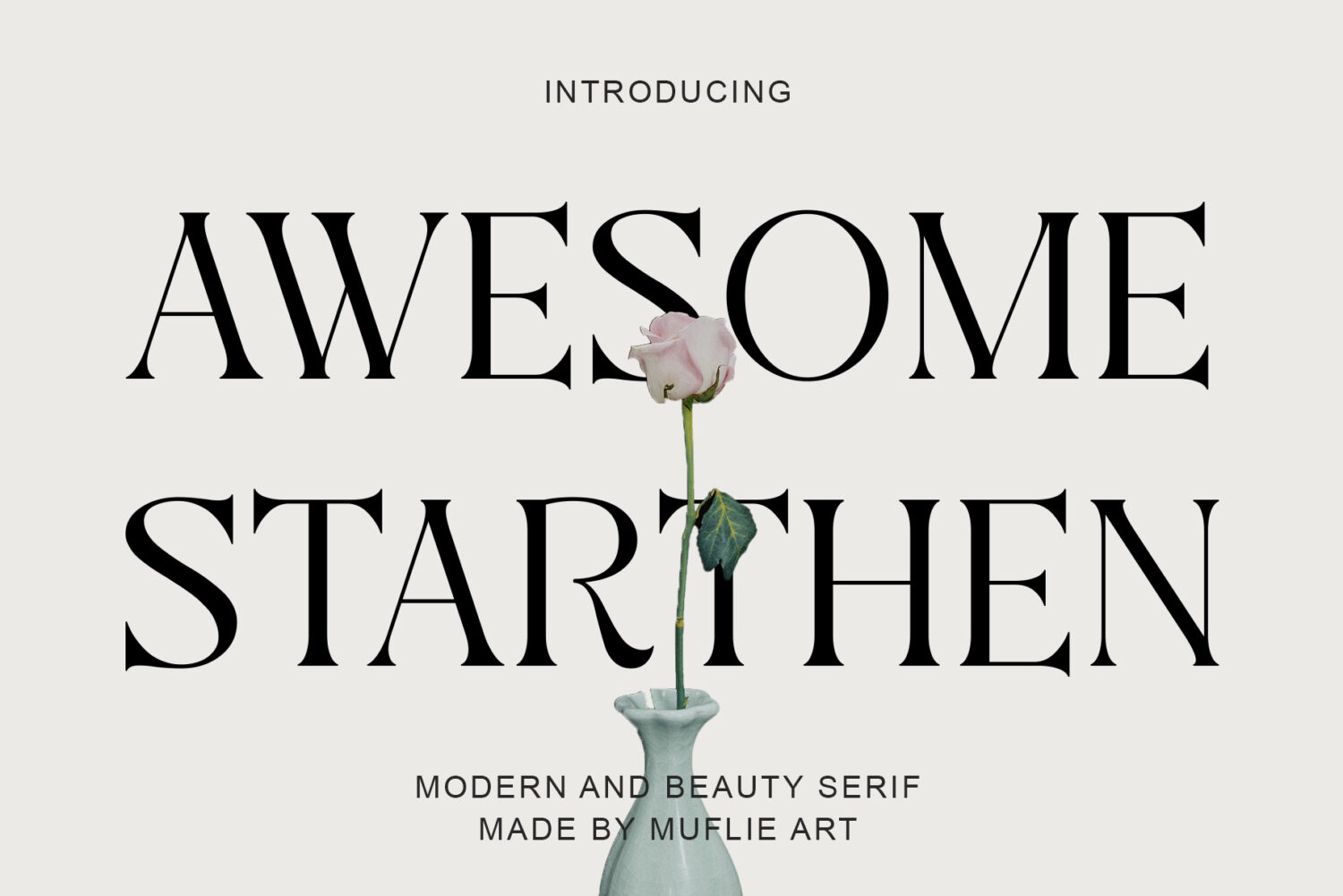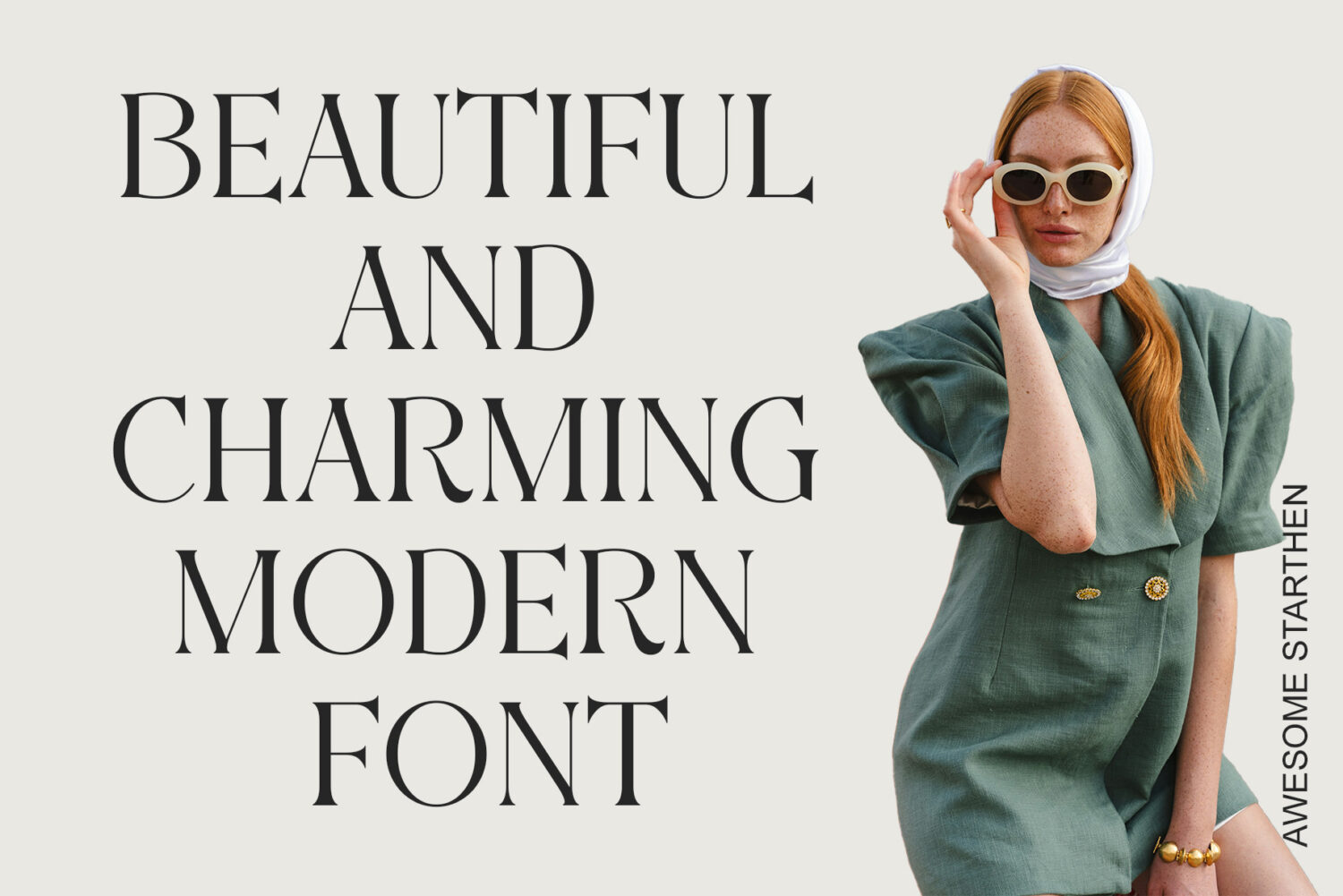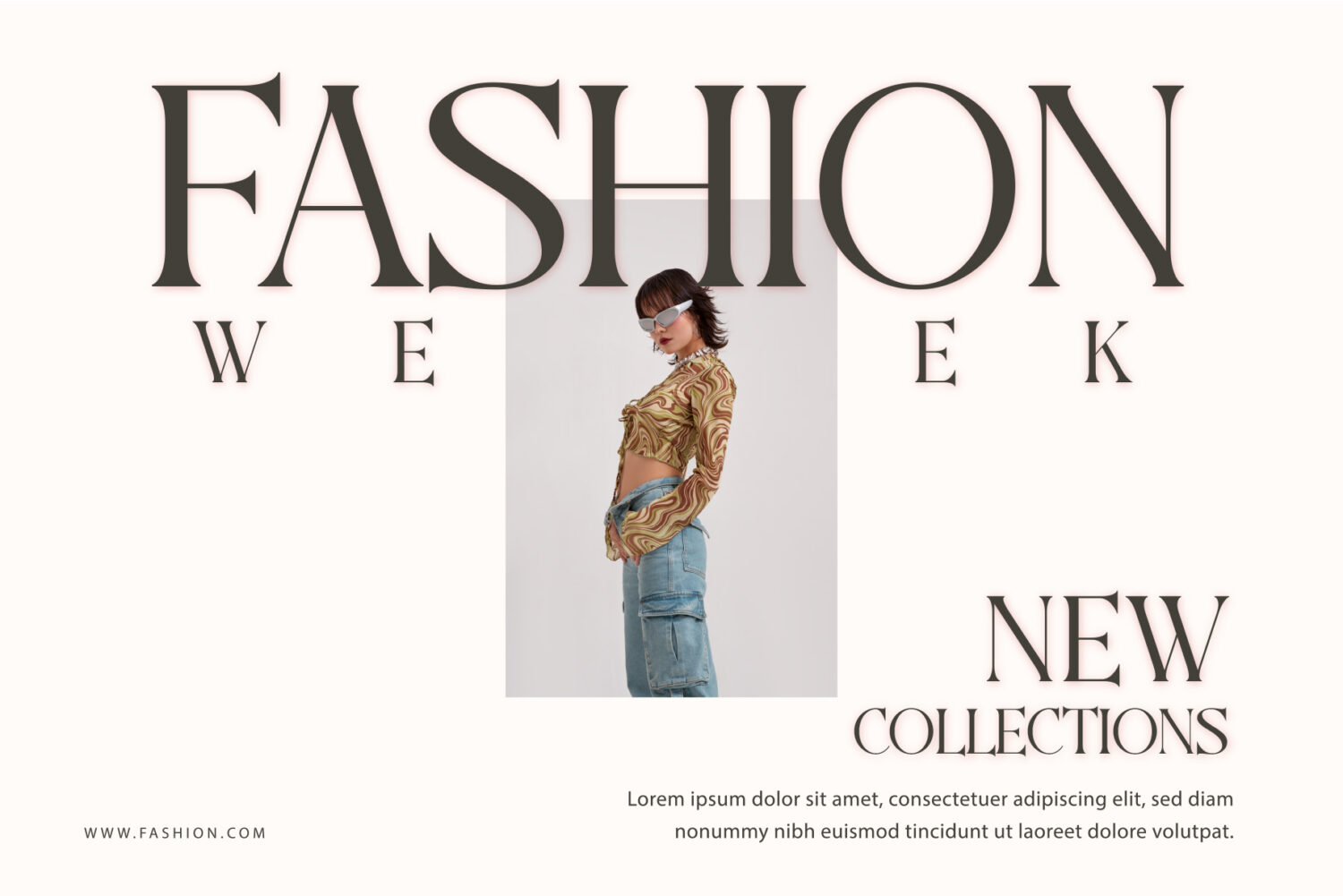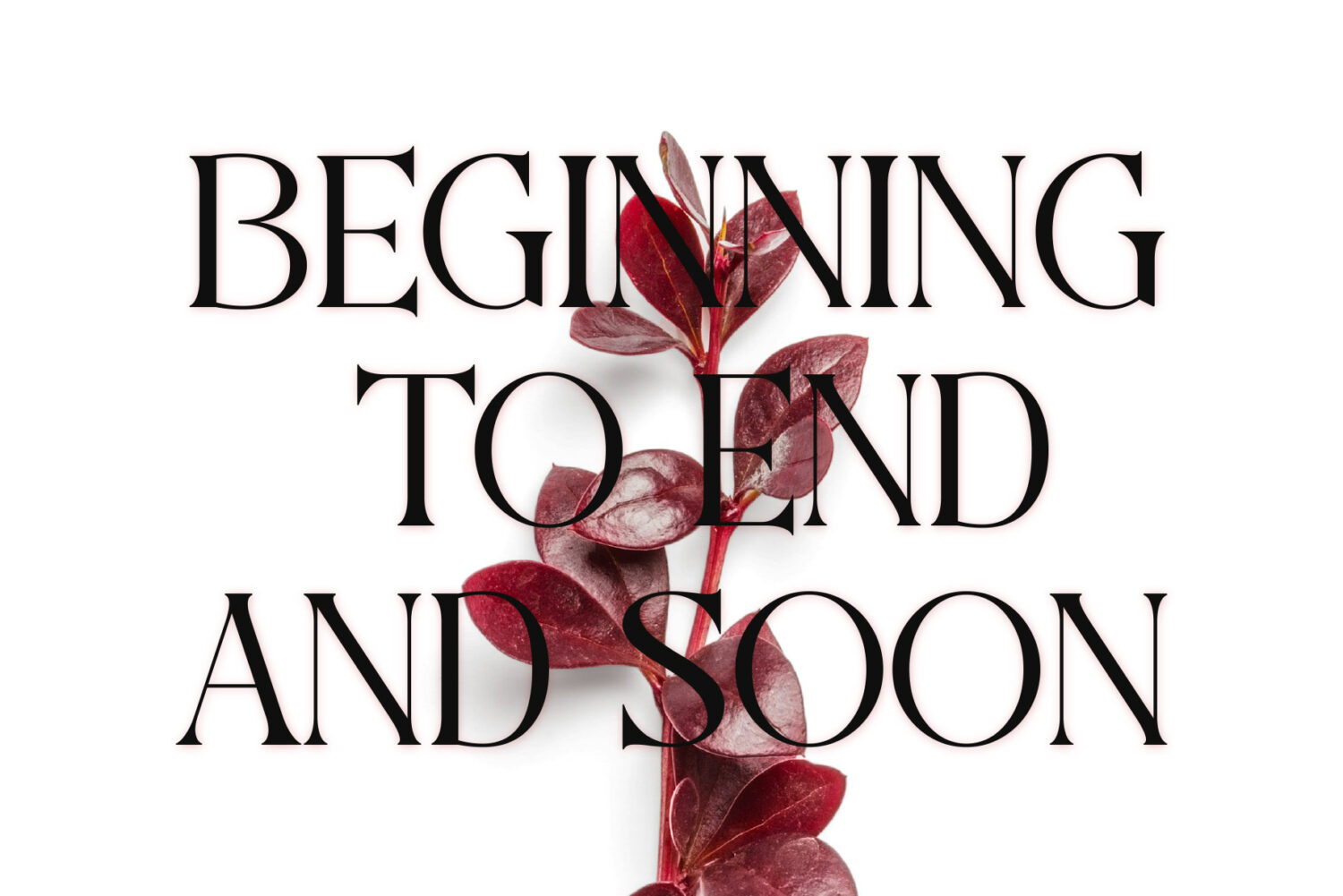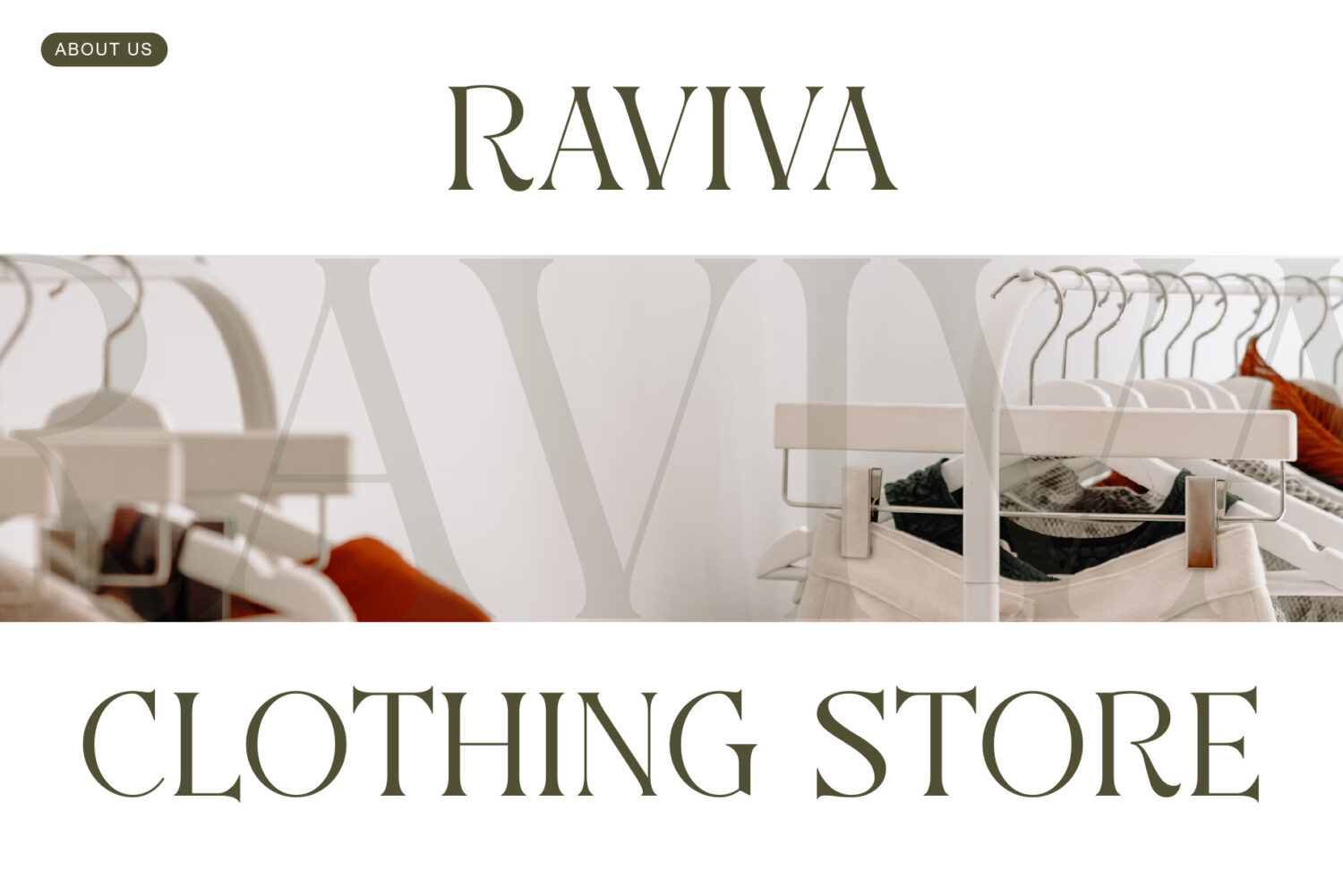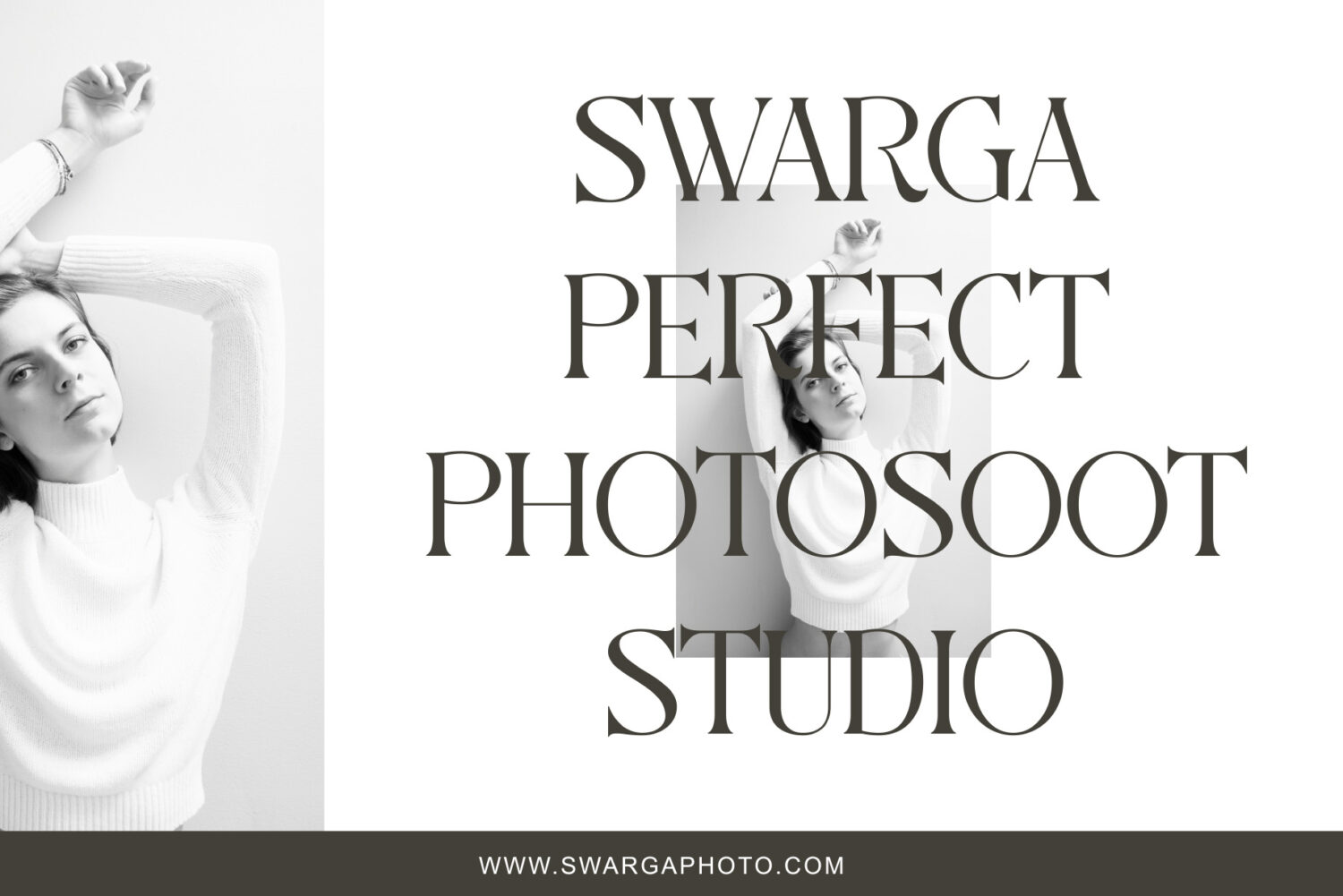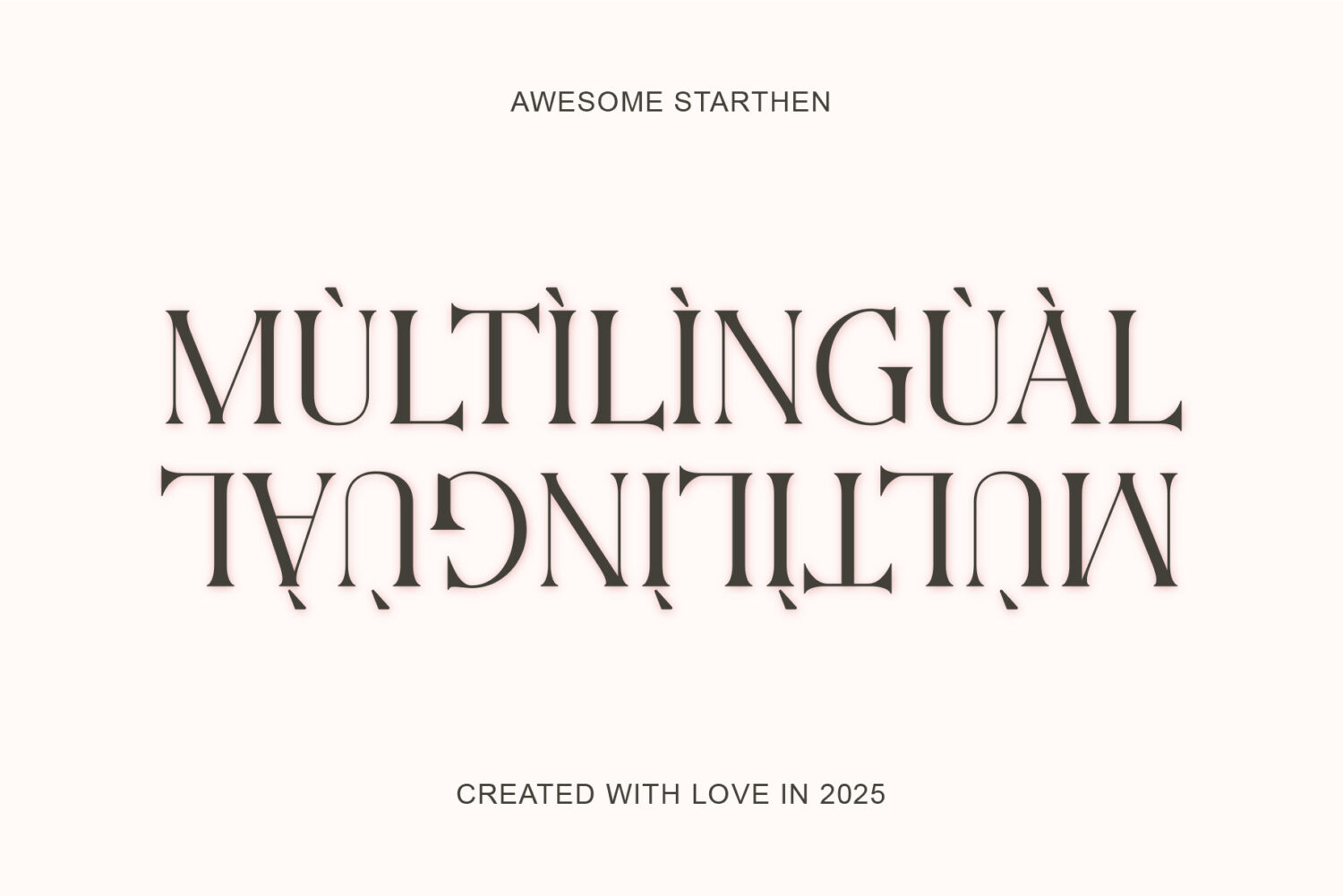
Introducing **Awesome Starthen** the elegant, beautiful, and modern Serif. With its modern and minimalist look, Awesome Starthen brings a luxurious, classy, ​​and clean style to your projects such as websites, modern logos, brand identities, social media quotes, wedding stationery, magazines, and more!
Awesome Starthen features unique and classy capital letters A to Z making Awesome Starthen a beautiful font that can be customized for various projects and jobs you want.
Awesome Starthen is perfect for: logos, brands, wedding invitations, business cards, greeting cards, posters, magazines, social media, agenda prints, and websites.
Awesome Starthen – Modern & Beauty Serif Font